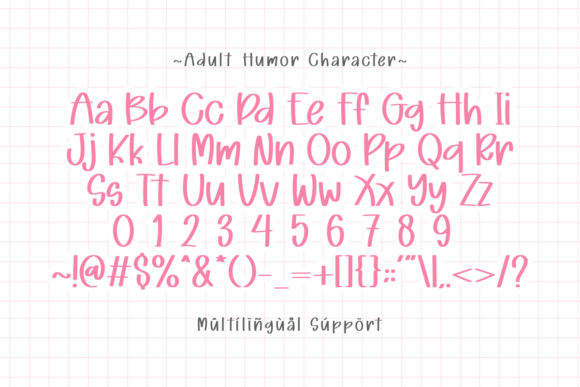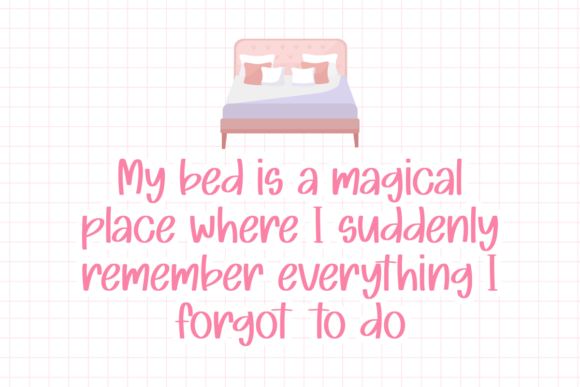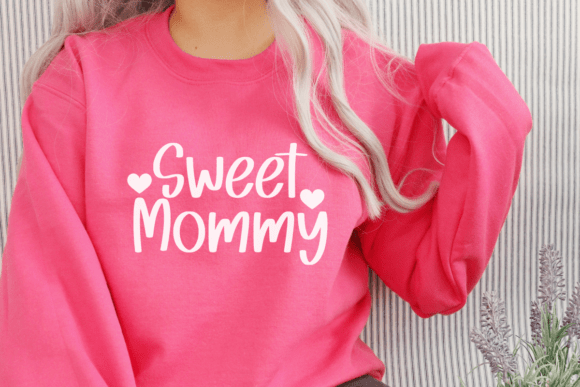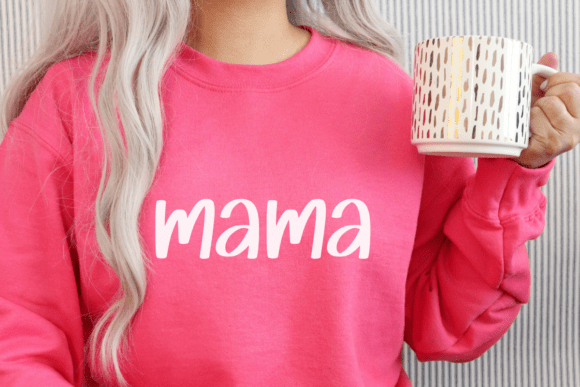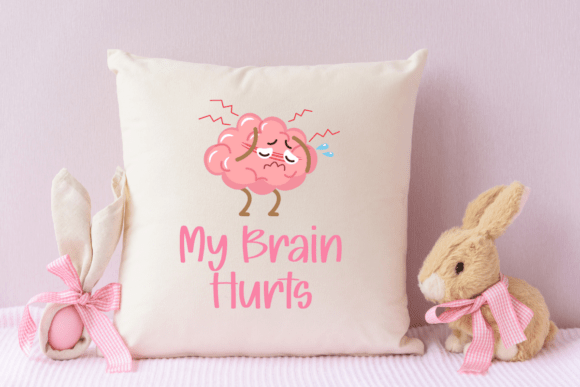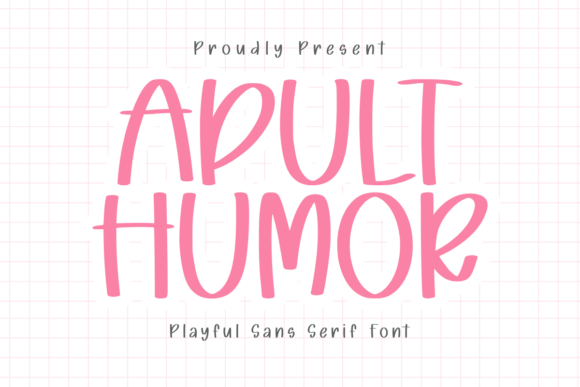
Introducing Adult Humor Font: The Perfect Addition to Your Design Arsenal
Are you a designer or crafter looking for a unique and playful font to elevate your creative projects? Look no further than the Adult Humor Font, a cute and minimalist sans serif font that’s perfect for a wide range of applications. In this article, we’ll dive into the features and benefits of this versatile font, and explore how it can help you create spectacular and interesting designs.
What is Adult Humor Font?
Adult Humor Font is a modern sans serif font that’s designed to be both simple and sophisticated. Its clean lines and minimalist aesthetic make it perfect for a variety of design projects, from greeting cards and wedding invitations to gift labels, mugs, t-shirts, and more. Whether you’re a professional designer or a crafty DIY enthusiast, this font is sure to become a staple in your design toolkit.
Key Features of Adult Humor Font
- Cute and Playful Aesthetic: Adult Humor Font has a charming and whimsical feel that’s perfect for creating designs that are both fun and sophisticated.
- Minimalist Sans Serif Design: The font’s clean lines and simple shape make it easy to read and versatile enough to use in a wide range of design applications.
- Highly Legible: Adult Humor Font is designed to be highly legible, even at small sizes, making it perfect for use on a variety of materials, from business cards to billboards.
Uses for Adult Humor Font
Adult Humor Font is an incredibly versatile font that can be used in a wide range of design applications, including:
- Greeting Cards: Add a touch of whimsy and personality to your greeting cards with Adult Humor Font.
- Wedding Invitations: Make your wedding invitations truly special with this beautiful and elegant font.
- Gift Labels: Add a personal touch to your gifts with custom labels featuring Adult Humor Font.
- Mugs and T-Shirts: Create fun and quirky designs for mugs and t-shirts that are sure to stand out.
- Quotes and Labels: Use Adult Humor Font to add a touch of personality to your quotes, labels, and other design projects.
Tips for Using Adult Humor Font
To get the most out of Adult Humor Font, here are a few tips to keep in mind:
- Experiment with Different Sizes: Adult Humor Font looks great at a wide range of sizes, from small and delicate to large and bold.
- Pair with Other Fonts: Try pairing Adult Humor Font with other fonts to create interesting and dynamic designs.
- Use in Combination with Images: Adult Humor Font looks great in combination with images, so don’t be afraid to get creative and experiment with different design elements.
Adult Humor Font is a versatile and charming font that’s perfect for designers and crafters looking to add a touch of personality to their design projects. With its clean lines, minimalist aesthetic, and highly legible design, this font is sure to become a staple in your design toolkit. Whether you’re creating greeting cards, wedding invitations, gift labels, or more, Adult Humor Font is the perfect choice for adding a touch of whimsy and fun to your designs.